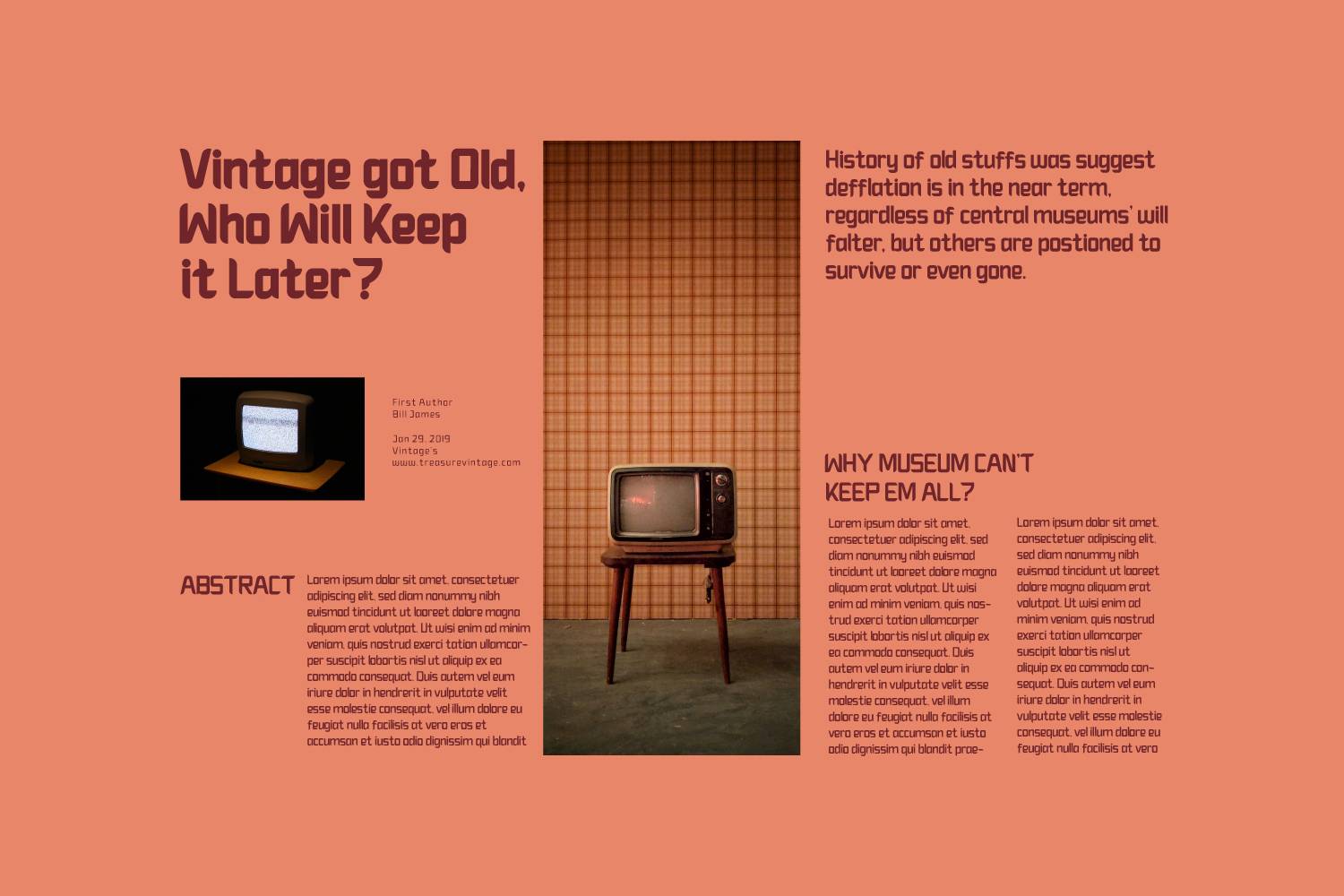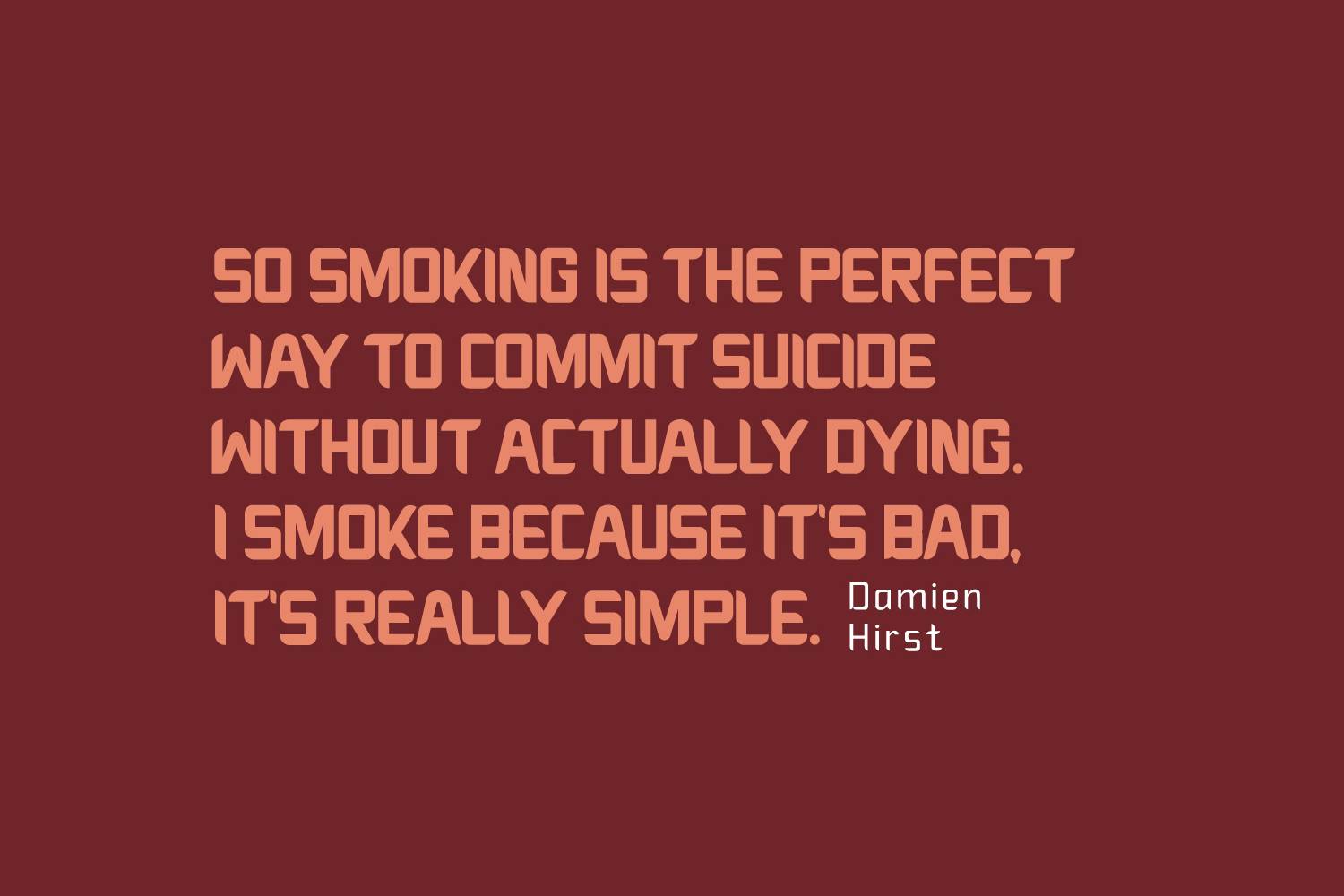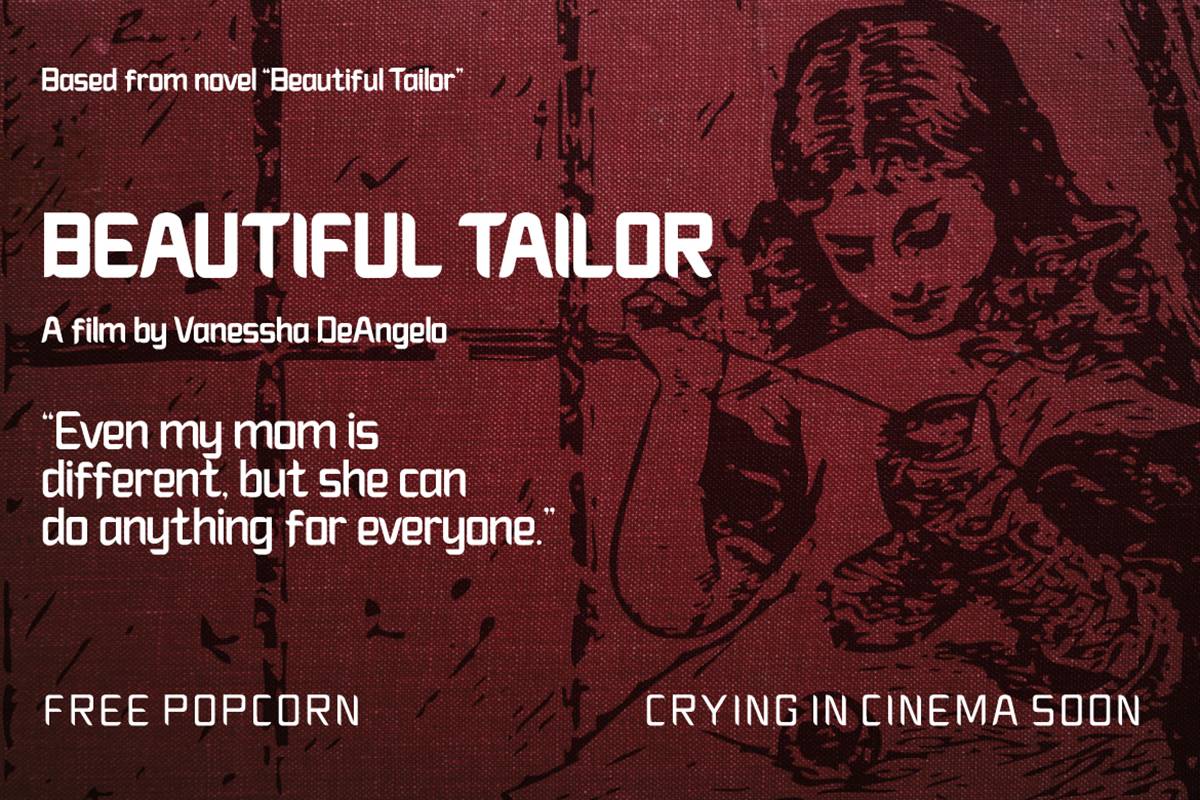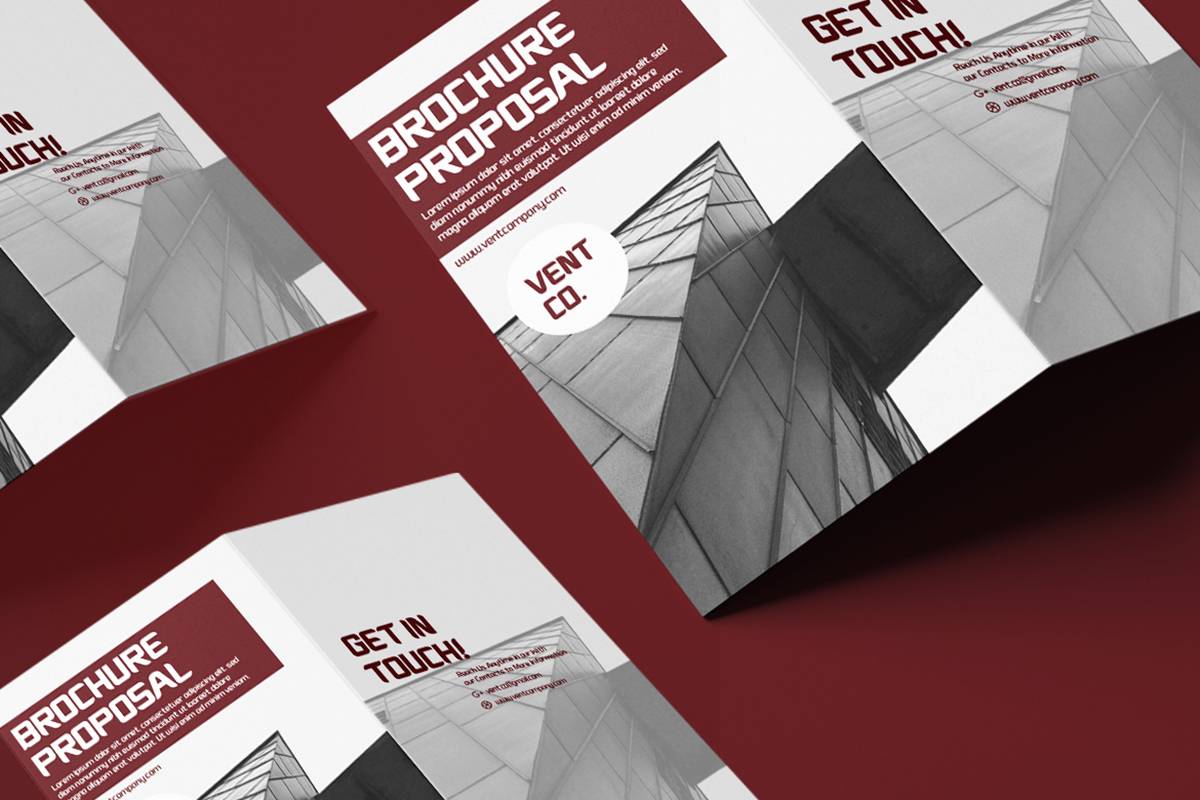
Gurinda is a modern sans serif font characterized by its condensed, geometric letterforms and consistent stroke weight that creates a clean, streamlined look. Its high x-height and single-story characters give it excellent readability, making it suitable for bold headlines and contemporary branding. This font’s sleek, futuristic vibe works well for tech-focused designs, editorial projects, and stylish packaging that demand a fresh, minimalist aesthetic.
About Gurinda Font
| Font family | Gurinda Font |
| Designer | Murozakul Akhsan |